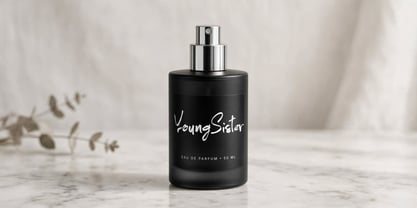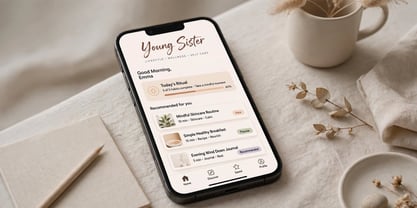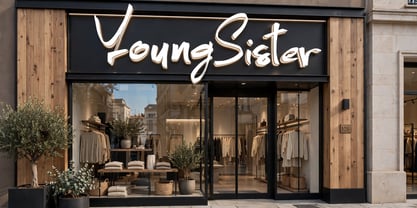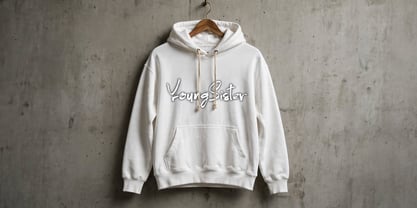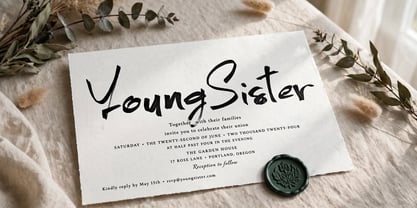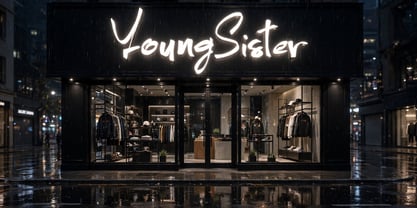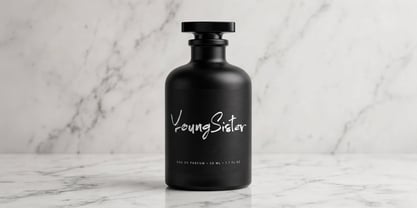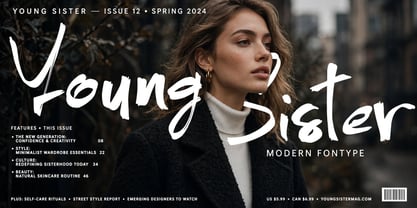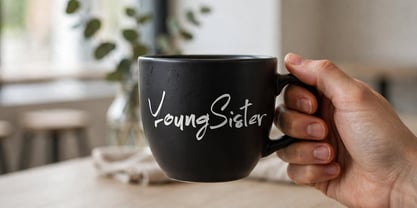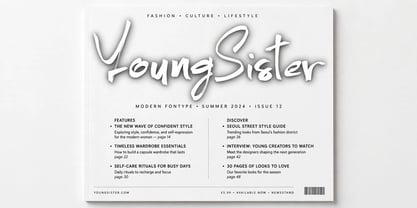
Young Sister
by Ayska
The Young Sister Font Family was designed by Dhoni Trihatmoko and published by Ayska. Young Sister contains 1 styles. More about this family
Young Sister is a handcrafted brush font that’s brimming with friendly charm and character. Designed to bring a lively, organic vibe to your projects, Young Sister’s playful curves and natural imperfections make it the perfect choice for adding personality to your designs.
Whether you’re creating bold logos, vibrant food packaging, quirky branding, or fun social media posts, Young Sister delivers a look that’s both eye-catching and approachable. Its hand-painted aesthetic ensures every letter feels authentic and full of life.